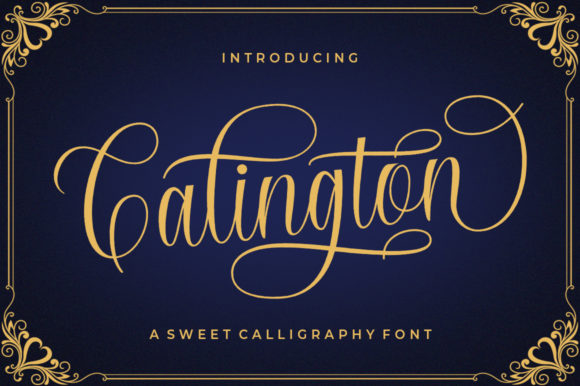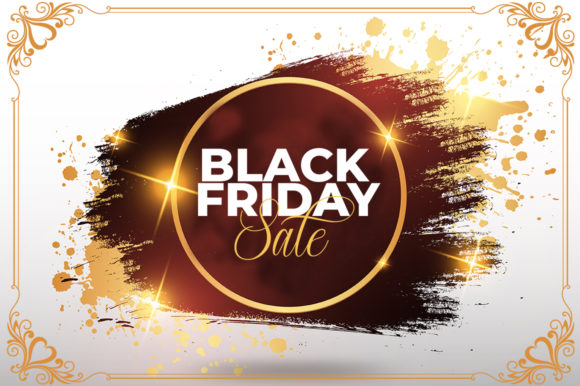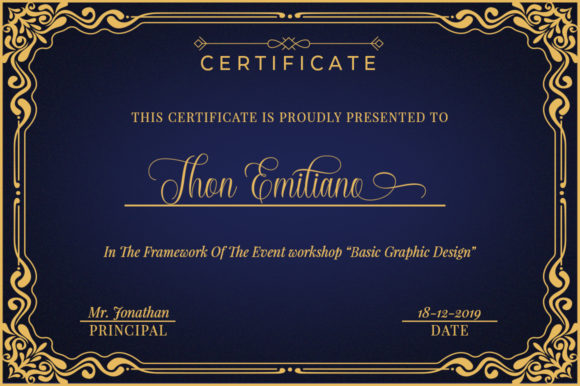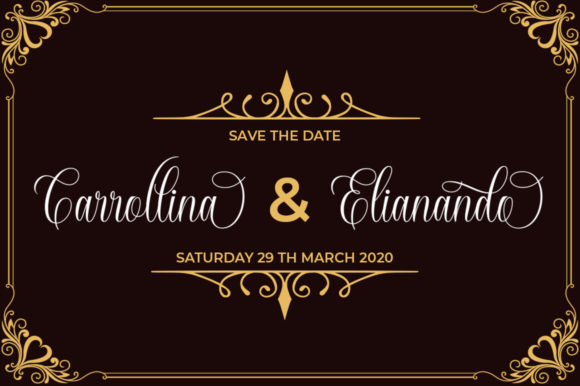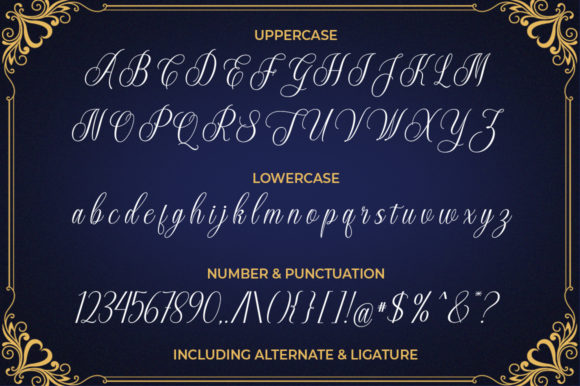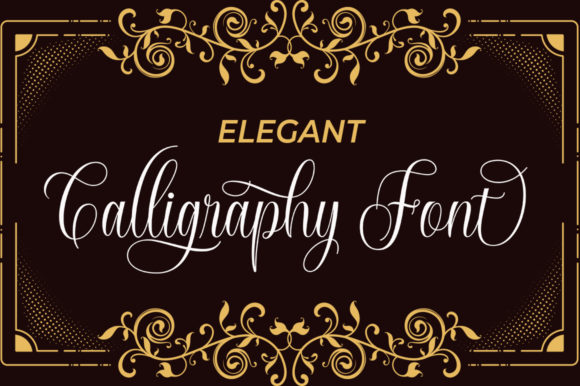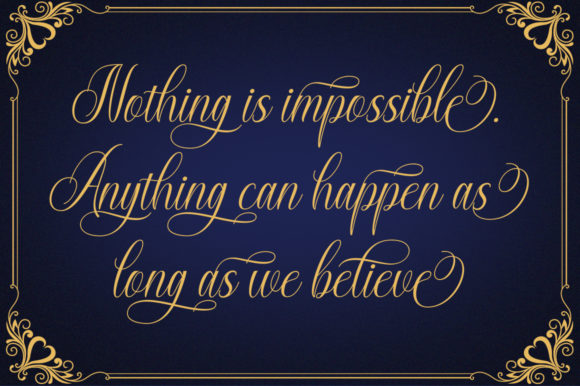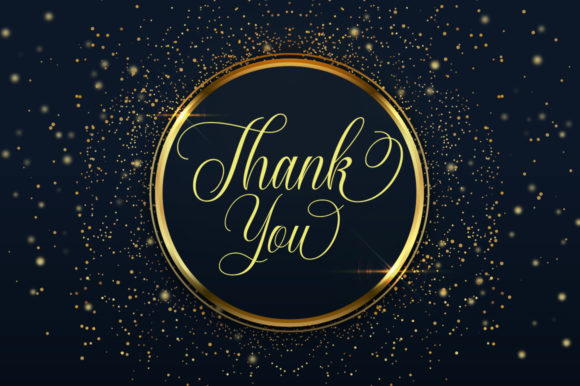
HomeScript FontsCalington Font Script Fonts Calington Font FacebookXPinterestWhatsApp Calington Font Poster 2 Calington Font Poster 3 Calington Font Poster 4 Calington Font Poster 5 Calington Font Poster 6 Calington Font Poster 7 Calington Font Poster 8 About Calington Font Calington is a bold and vibrant script featuring rich swashes. Fall in love with this dazzling font! DOWNLOAD NOW People also explored Rosie Font Hielda Font Arumi Twain Font Kiotto Font Rarara Font Roses Font Mandala Font Wathenda Font Weather in October Font 499 0 TagsCalington Font Previous articleMeredith FontNext articleKarisma Font LEAVE A REPLY Cancel reply Comment: Please enter your comment! Name:* Please enter your name here Email:* You have entered an incorrect email address! Please enter your email address here Website: Save my name, email, and website in this browser for the next time I comment. Personal Use Free Austin Personal Use Free Read more about this font Loving Personal Use Free Read more about this font New Amsterdam Personal Use Free Read more about this font Soria Personal Use Free Read more about this font BLOG Top 7 Google Fonts Alternatives for Faster and Privacy-Friendly Web Design (2025) Top 7 Google Fonts Alternatives for Faster and Privacy-Friendly Web Design (2025) When it comes to web typography, Google Fonts has long been the go-to... Transform Your Website: Elevate Your Typography with 7 Best Web Font Generators To increase your work productivity, choose the most readable fonts. Best Fonts for T-Shirt Design – Top 2025 Picks